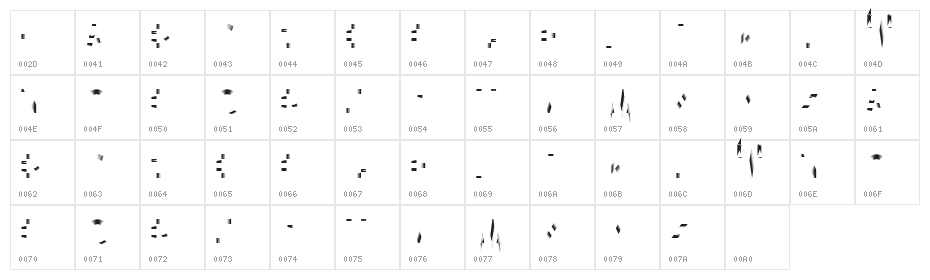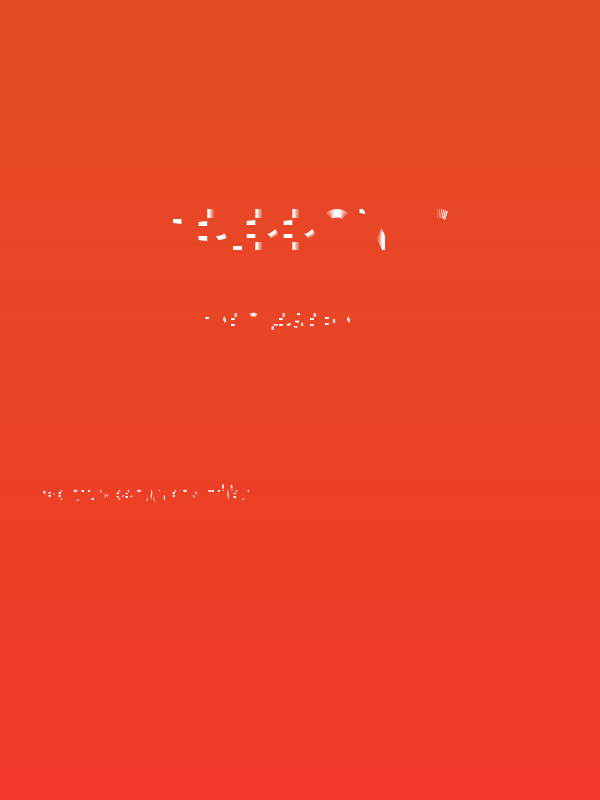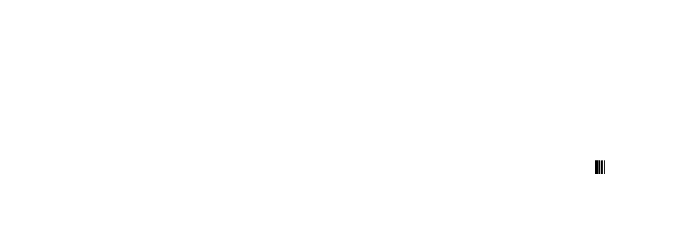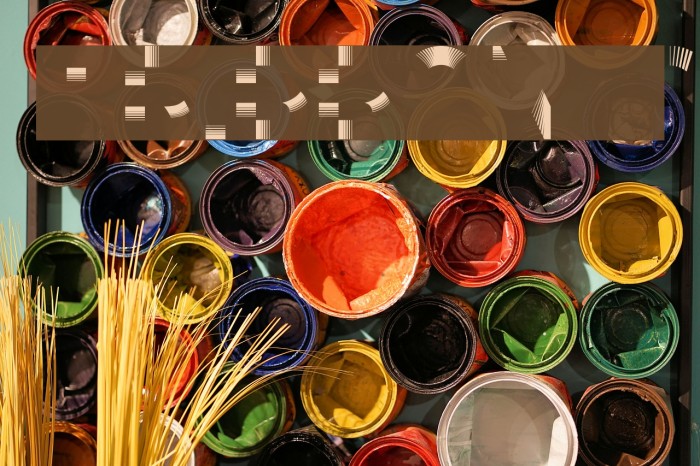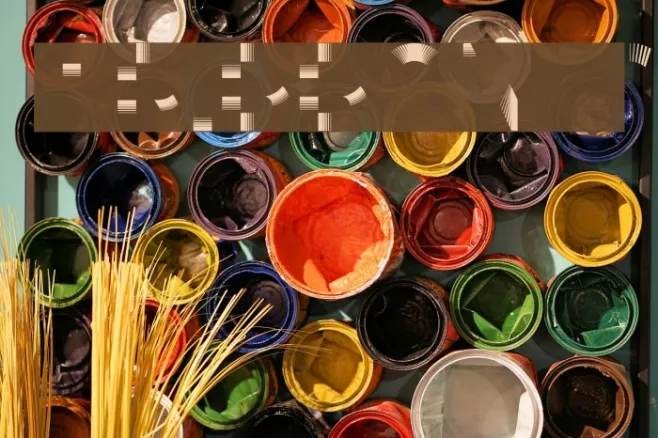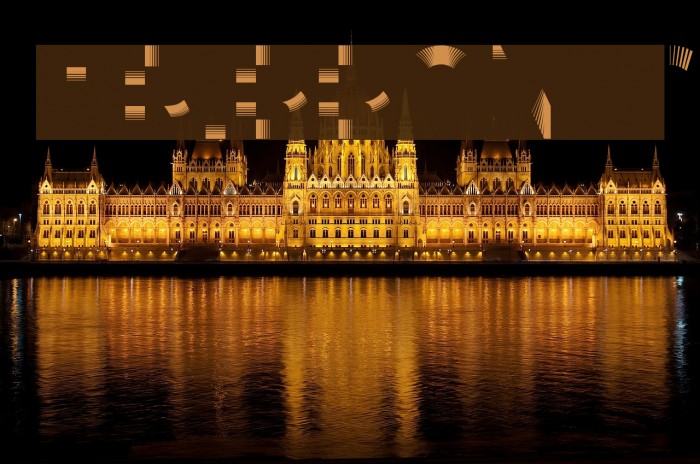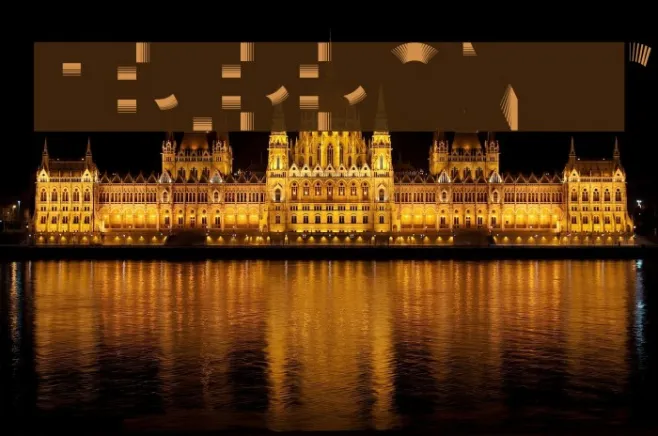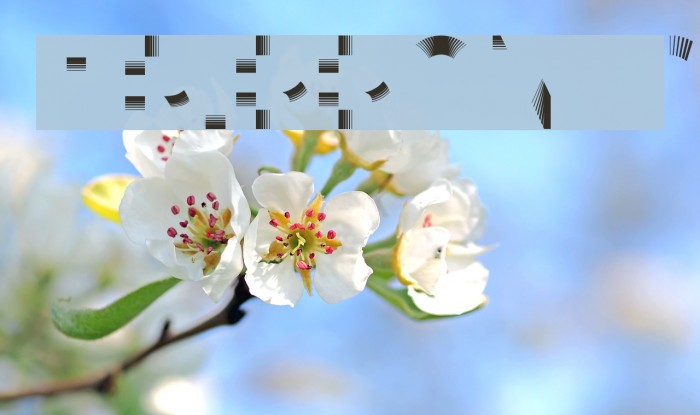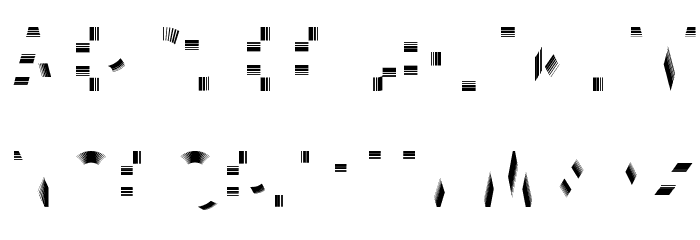
Tribbon C Font
Tribbon C Description
This font features a unique design where each character is constructed from a series of parallel lines, creating a ribbon-like appearance. The lines vary in thickness, adding a dynamic and textured look to the characters. The uppercase and lowercase letters maintain a consistent style, with the lines forming distinct shapes that are both artistic and legible. Numbers and special characters follow the same design principle, ensuring a cohesive visual experience. The overall aesthetic is modern and decorative, making it suitable for creative and eye-catching designs.
| Proposed Projects | Ideal for branding, posters, and artistic projects where a unique and modern look is desired. |